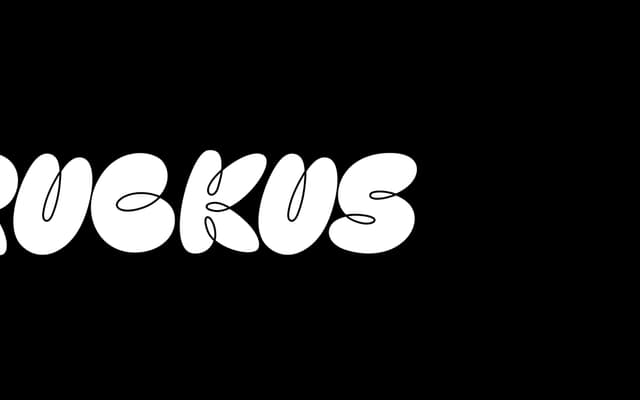
An abstract, uppercase-only display face in three stylistic variants — cutout, filled and outline — built for high-impact, short-text applications.
Ruckus pairs a squishy, expressive quality with three distinct styles that allow layering or standalone use across posters and logo work. Its glyph set is deliberately limited to uppercase letters and basic punctuation, keeping it focused on impact over versatility. At £25 for a single family it sits as an affordable option for designers needing a loose, energetic headline face.
A purely decorative, abstract display typeface with three stylistic variants; its limited glyph set and expressive, squishy letterforms place it firmly in the display category with no useful subcategory beyond that.